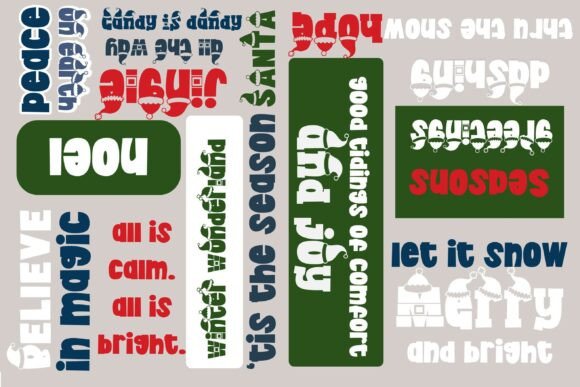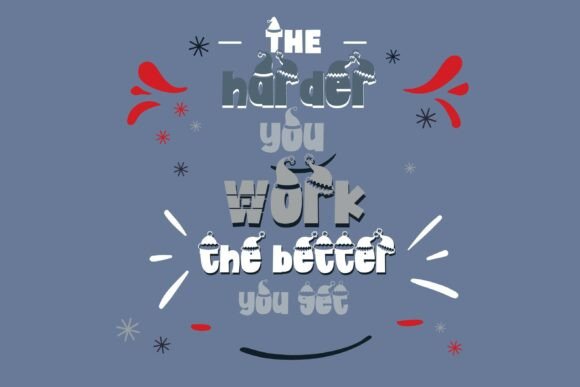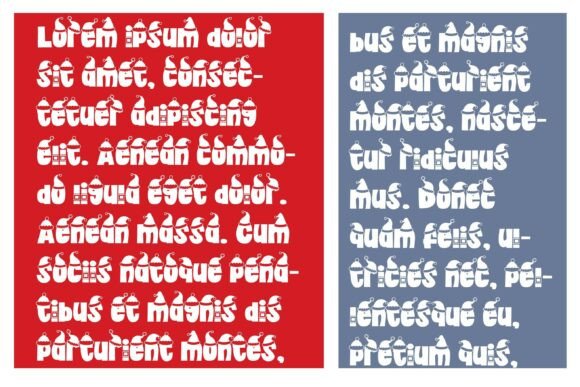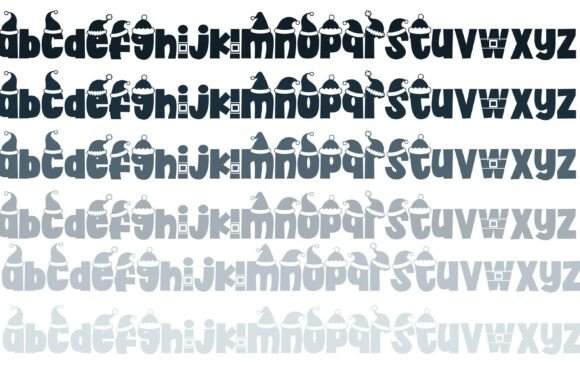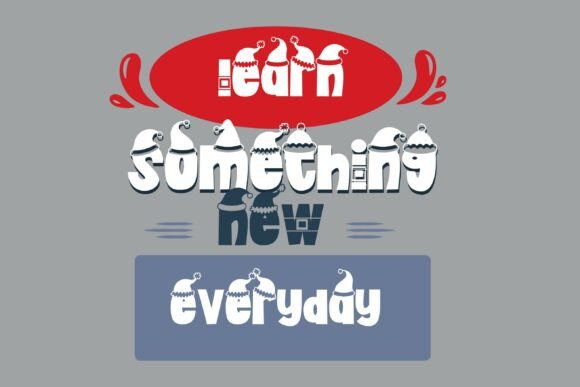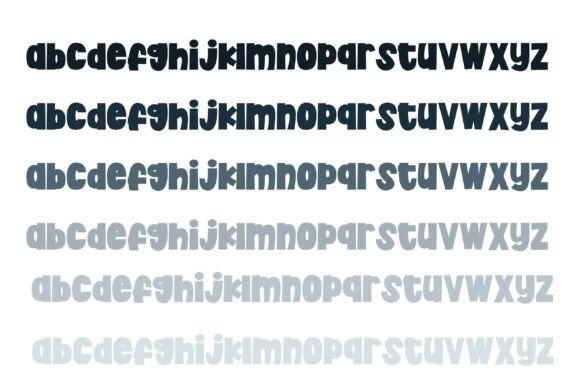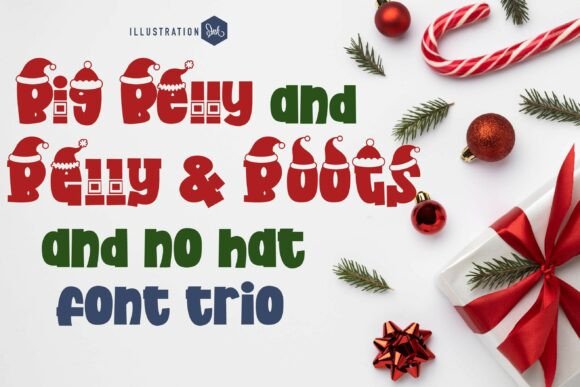
Introducing the Big Belly Trio Font: A Festive and Fun Font Family for Your Holiday Projects
Are you looking for a font that can add a touch of festive fun to your holiday projects? Look no further than the Big Belly Trio Font! This hand-crafted font trio is perfect for designers and crafters who want to create seasonal merchandise, greeting cards, festive posters, children’s holiday books, and more.
A Unique and Versatile Font Family
The Big Belly Trio Font is a unique and versatile font family that combines three distinct fonts in one package. The set includes a chunky, hat-wearing sans serif font, a serif version, and the same sans serif font without belts and hats. But that’s not all – the package also includes a bonus tag dingbat font, bringing the total number of fonts to 10!
The Big Belly Trio Font is specifically designed to add a strong, fun, and instantly recognizable Christmas aesthetic to your projects. The fonts are perfect for:
- Seasonal merchandise, such as holiday-themed t-shirts, mugs, and gift tags
- Festive posters and flyers
- Children’s holiday books and activity sheets
- Any project that needs a fun and festive touch
What Sets the Big Belly Trio Font Apart
So what sets the Big Belly Trio Font apart from other font families? Here are just a few things that make it special:
- Hand-crafted with love and care: Each font in the Big Belly Trio Font family is hand-crafted with attention to detail, ensuring a unique and personal touch.
- Unique and quirky designs: The fonts in this family are designed to be fun and playful, with a quirky charm that’s sure to delight.
- Instantly recognizable Christmas aesthetic: The Big Belly Trio Font is specifically designed to evoke the spirit of Christmas, with bold and festive designs that are sure to get your projects noticed.
- Versatile and flexible: With 10 fonts in one package, you have plenty of options to choose from, making it easy to find the perfect font for your project.
Why Designers and Crafters Love the Big Belly Trio Font
Designers and crafters love the Big Belly Trio Font for many reasons. Here are just a few:
- High-quality designs: The fonts are designed to be high-quality and visually appealing, making it easy to create professional-looking projects.
- Time-saving: With 10 fonts in one package, you can save time and effort by having a range of options at your fingertips.
- Fun and creative: The Big Belly Trio Font is designed to be fun and creative, making it perfect for projects that require a playful touch.
If you’re looking for a font that can add a touch of festive fun to your holiday projects, look no further than the Big Belly Trio Font. With its unique and quirky designs, versatile and flexible font family, and high-quality designs, it’s the perfect choice for designers and crafters alike.